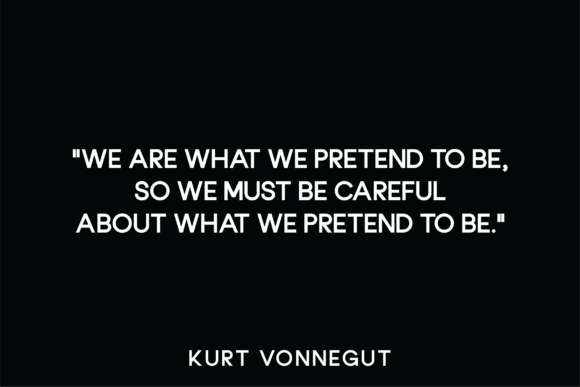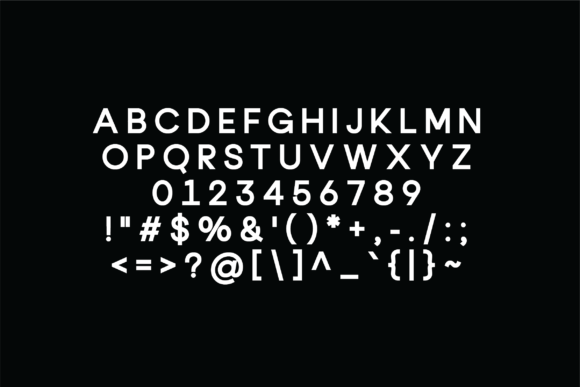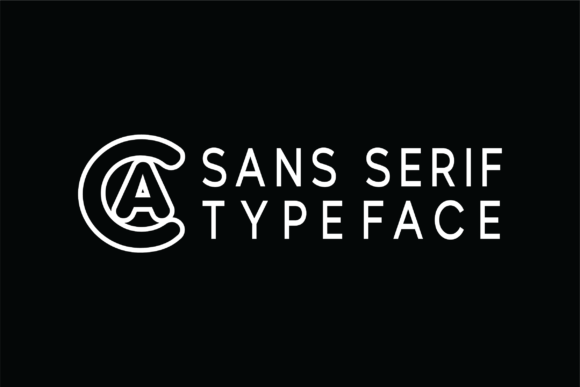
Introduction to Mnemonic Font
Have you ever been working on a creative project, pouring your heart and soul into it, only to feel like something’s missing? You know, that moment when you’re staring at a blank canvas, a blank page, or even a blank screen, and you just can’t seem to bring your vision to life? That’s exactly where the right design resource can make all the difference. For designers, finding the perfect font can be a game-changer, and that’s where the Mnemonic Font comes in.
| 👤 Author | A Christie |
This versatile and modern sans serif font is a breath of fresh air for any creative project. With its classy and sophisticated look, it’s perfect for logos, weddings, invitations, quotes, advertisements, print, magazines, and more. And the best part? It’s available for free download, making it an invaluable resource for designers of all levels.
What sets the Mnemonic Font apart is its high-quality design and transparent background, making it a seamless addition to any project. Whether you’re a seasoned pro or just starting out, this font is sure to bring your ideas to life in a whole new way.
Mnemonic Font
- High-quality, professional font designed for creative projects and various design applications.
- Includes a transparent background, allowing for seamless integration with various design elements.
- Features a high-resolution design, suitable for use in print and digital applications at 300 DPI.
- Unique characteristics include a clean, modern aesthetic and a wide range of stylistic options.
Honest Review: Mnemonic Font
I recently came across the Mnemonic Font, and I must say it’s been a game-changer for my creative projects. This font is a design resource that I’ve been using to create visually appealing and engaging content for my clients.
What works well about the Mnemonic Font is its versatility. It’s available for free download, making it an excellent option for designers on a budget. The font is also available in a transparent background version, which is perfect for creating striking visuals. Additionally, the high quality of the font ensures that it looks great on any device or platform.
The Mnemonic Font is ideal for designers who are looking for a creative solution to their design problems. It’s a great resource to have in your toolkit, and I highly recommend it to anyone who’s working on a creative project.
Here are some of the features that I love about the Mnemonic Font:
- Transparent background version available
- High quality design
- Perfect for creative projects
Overall, I’m thoroughly impressed with the Mnemonic Font, and I would highly recommend it to anyone who’s looking for a reliable and high-quality design resource.
Mnemonic Font
Mnemonic Font is a versatile design resource that can elevate your creative project with its unique style and high quality. This font is available for free download with a transparent background, making it easy to integrate into various design tools.
Tips for Getting the Most Out of Mnemonic Font
To maximize the impact of Mnemonic Font, use it in conjunction with other design elements, such as bold colors and creative graphics. Experiment with different font sizes and styles to create a visually appealing design.
Mnemonic Font is ideal for various creative projects, including:
Branding materials, such as logos and business cards
Social media graphics and advertisements
Presentation materials, such as slides and handouts
By incorporating Mnemonic Font into your design arsenal, you can add a touch of sophistication and creativity to your work. Its free download availability makes it an accessible resource for designers of all levels. We encourage you to download and try Mnemonic Font today, and discover the endless possibilities it has to offer. With its impressive features and user-friendly interface, you’ll be amazed at the creative projects you can bring to life.